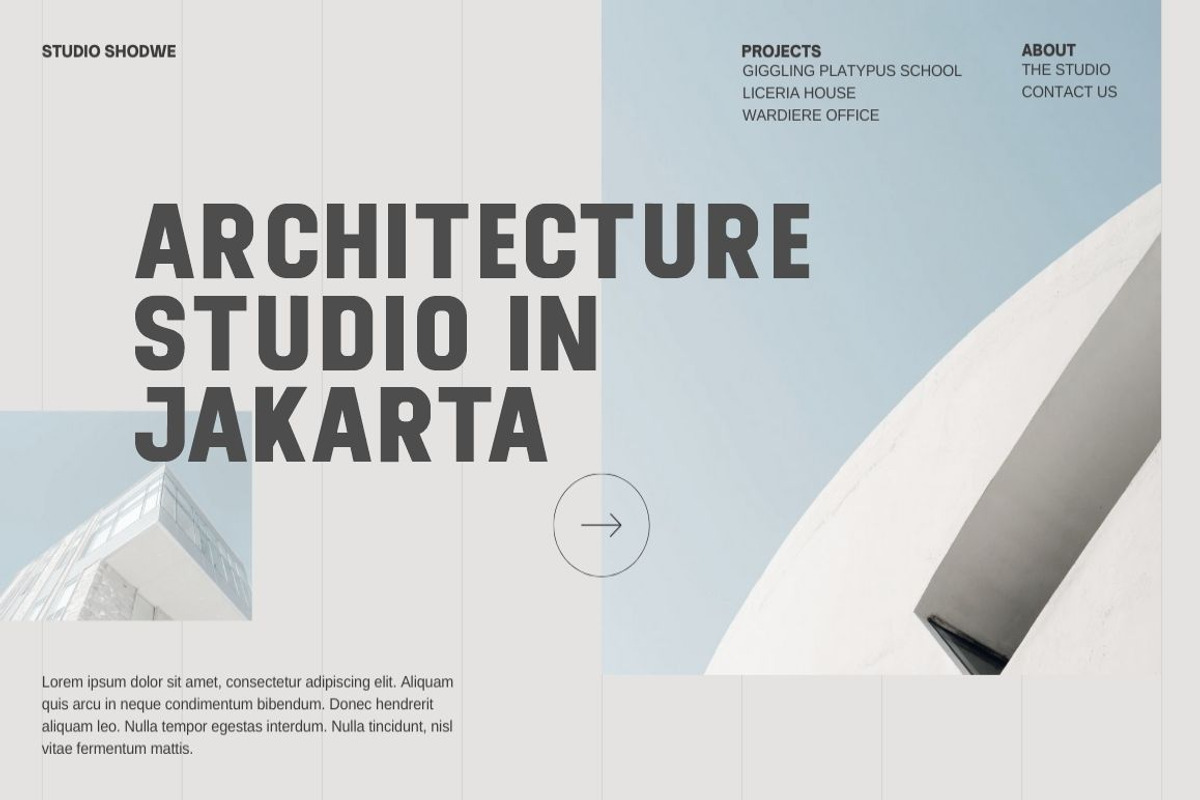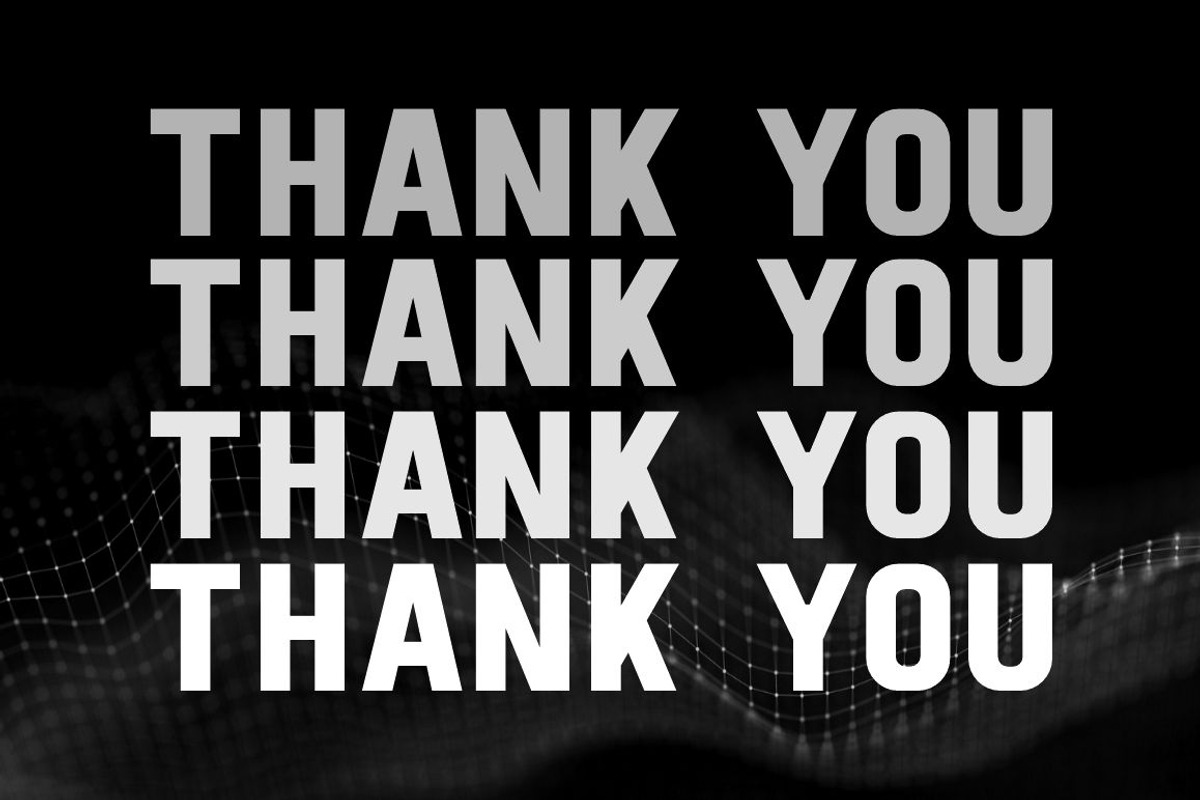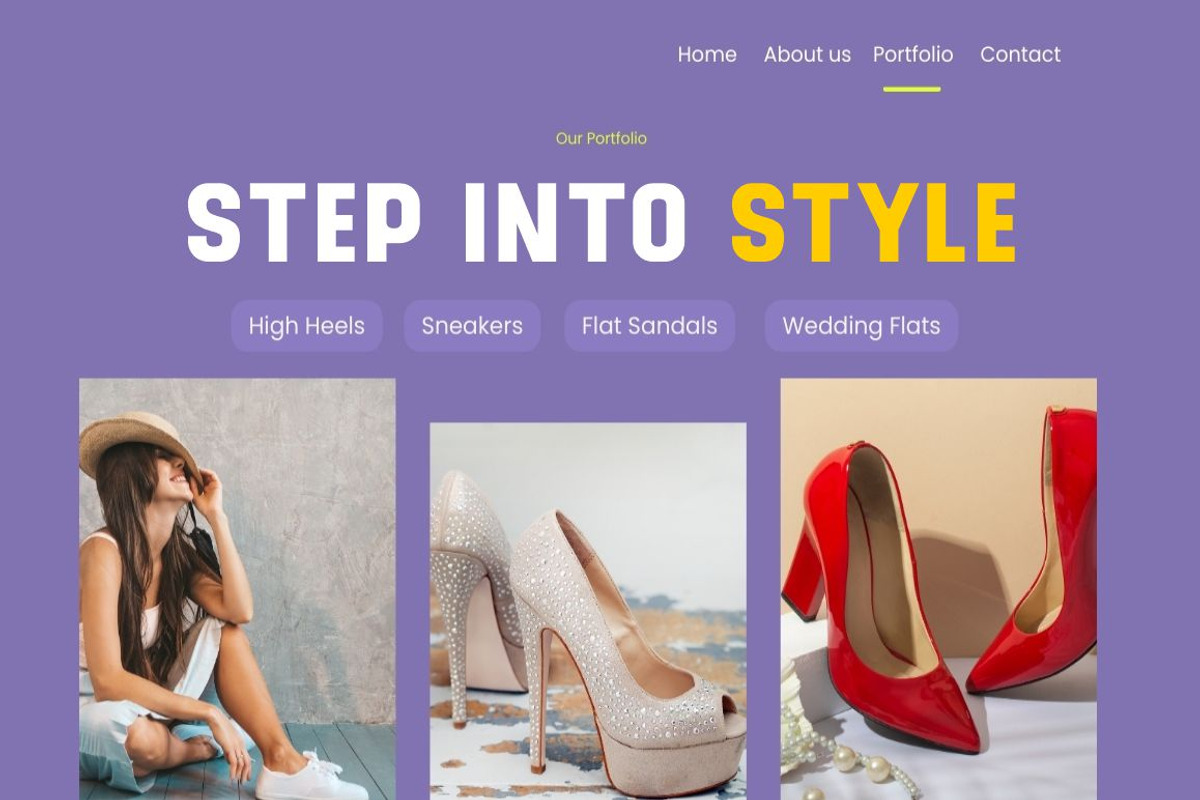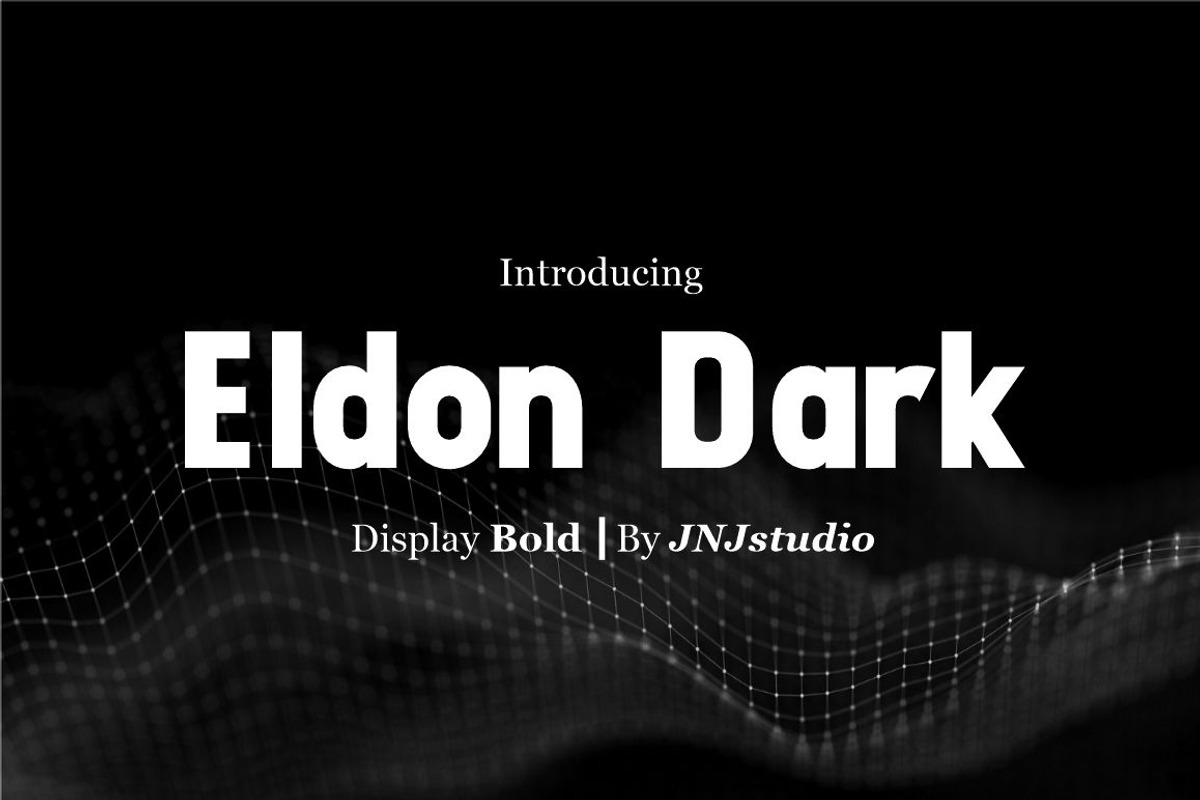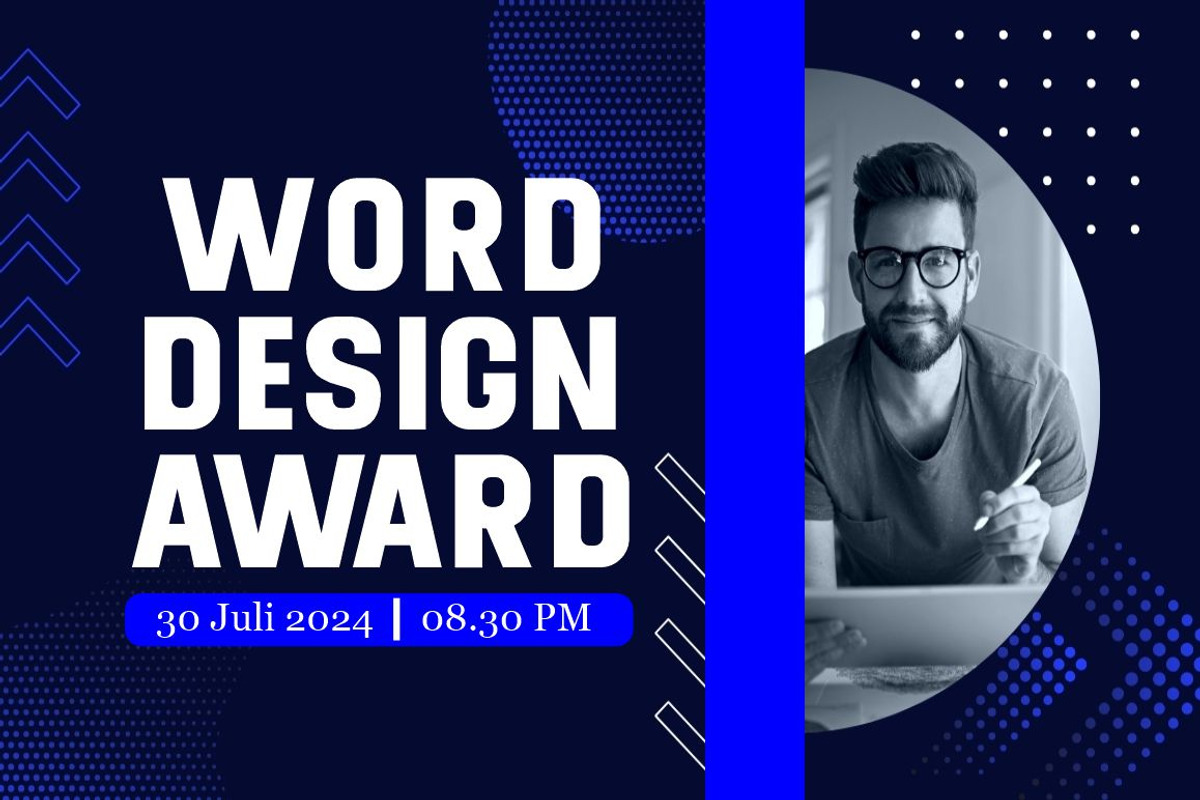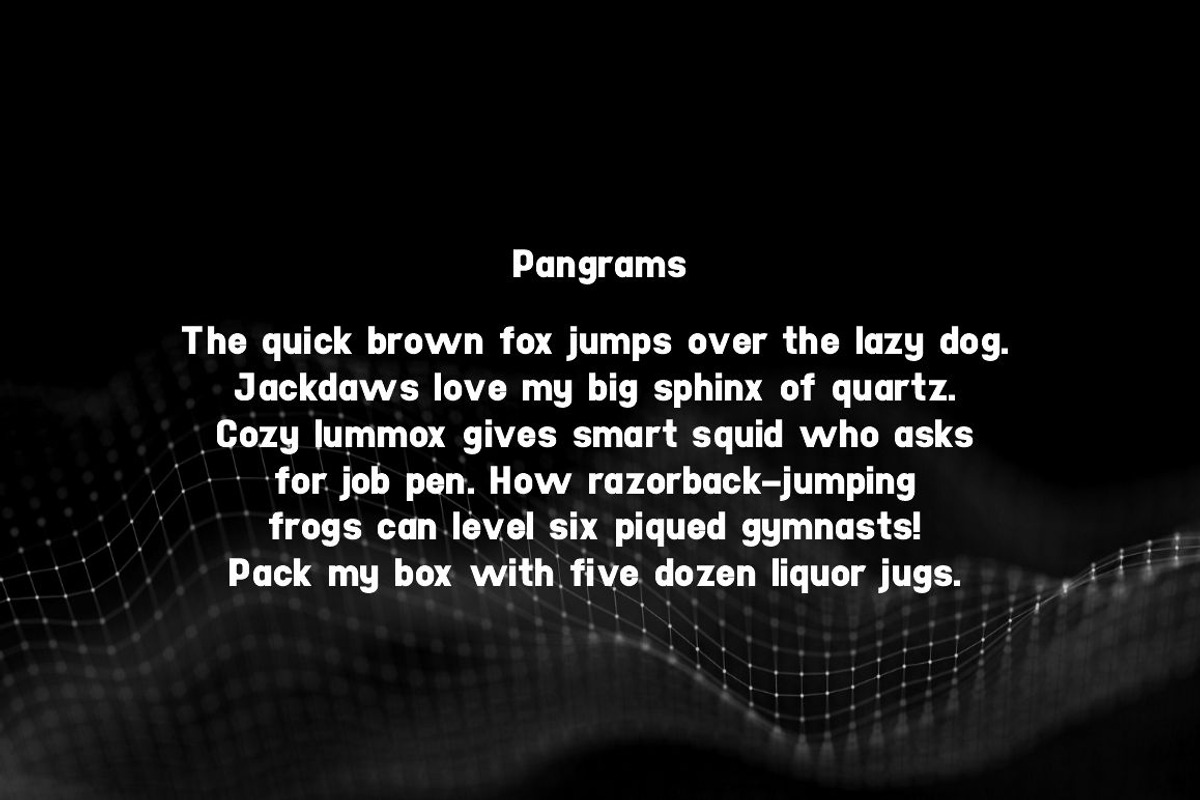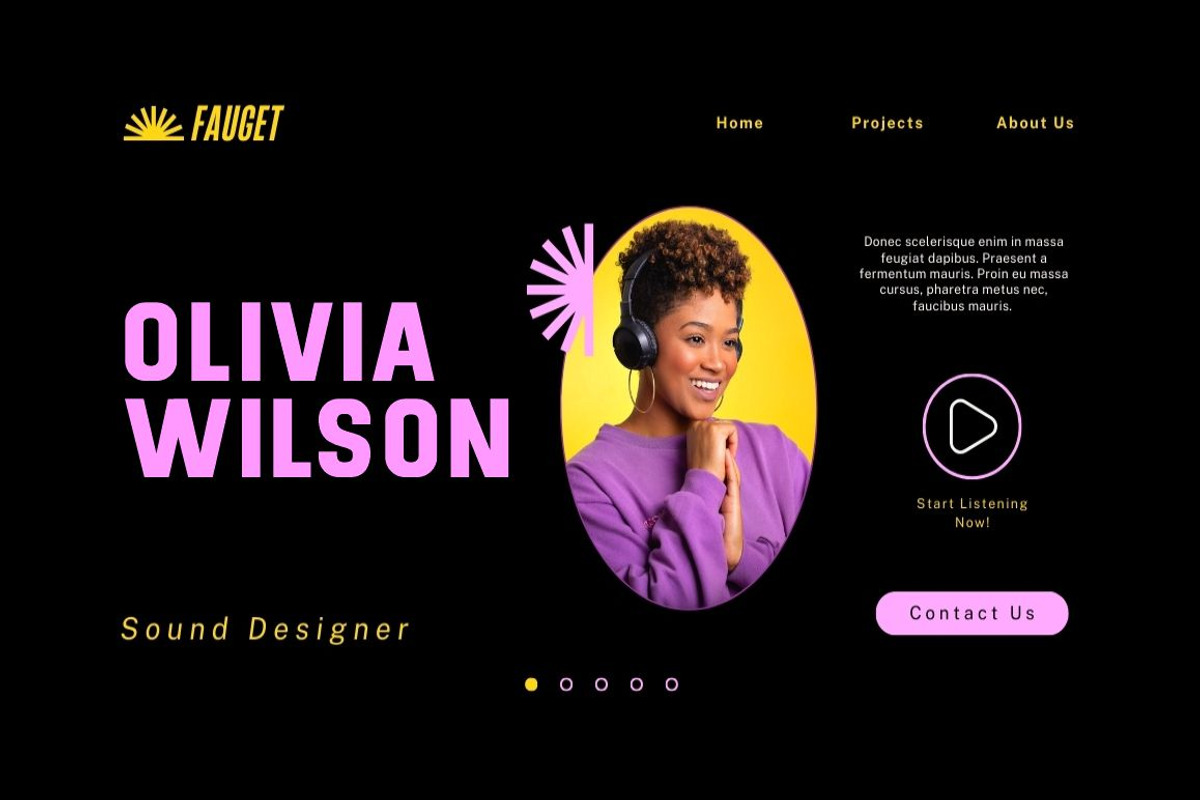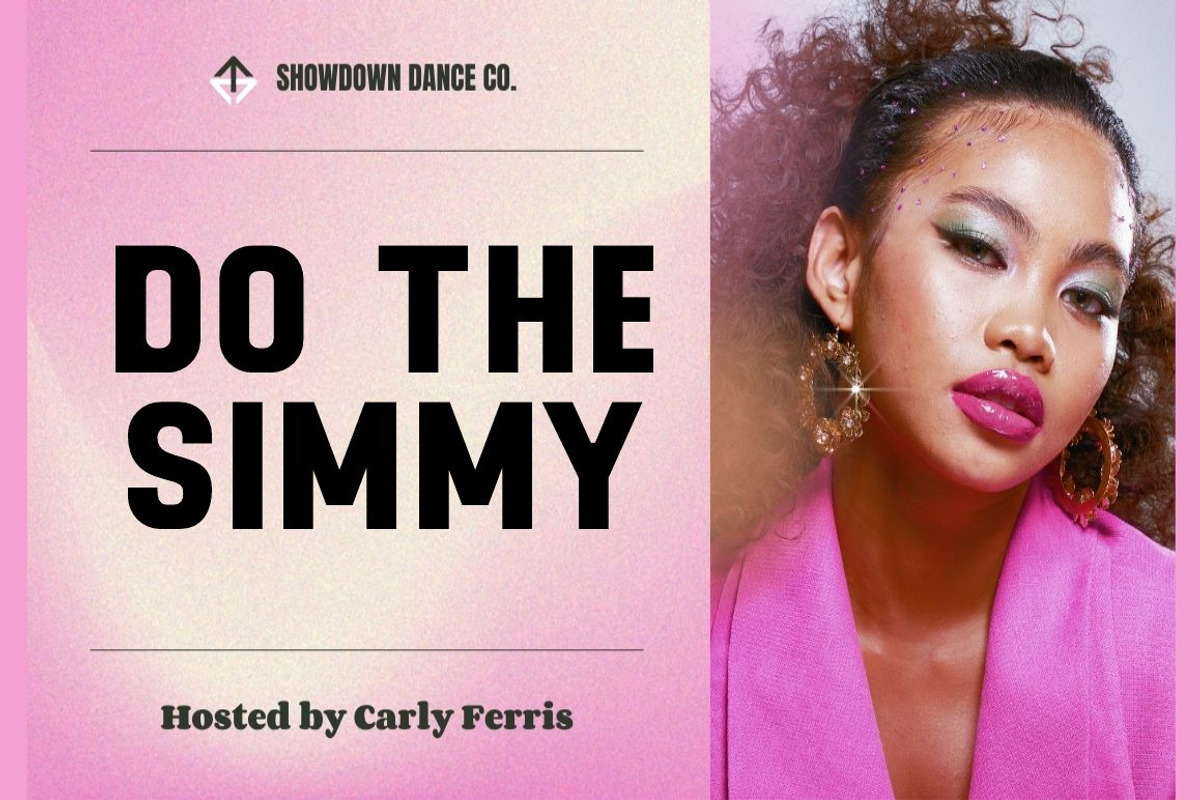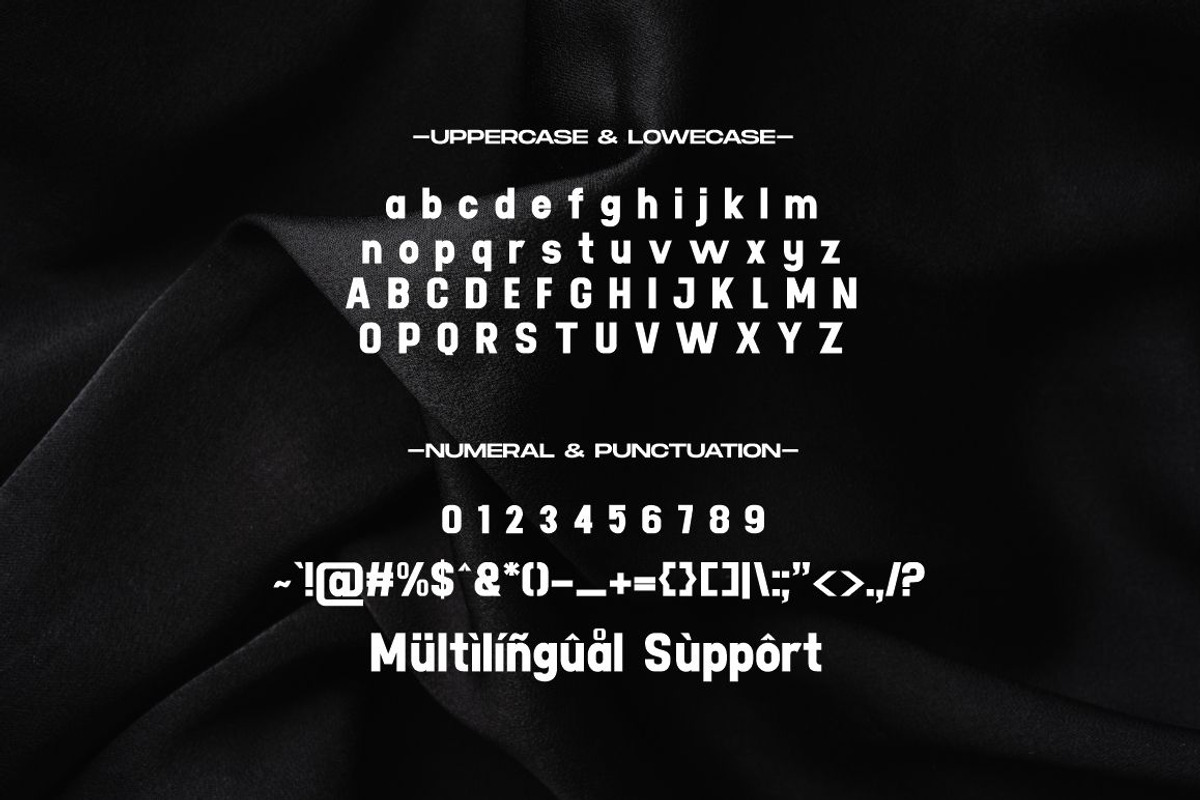
Eldon Dark Sans Serif
Introducing "Eldon Dark" is a bold and striking Display Sans Serif font designed to make a powerful impact. With its clean, modern lines and strong geometric shapes, this font exudes confidence and sophistication. The wide, blocky letterforms are perfect for headlines, posters, and branding that demand attention. Eldon Dark balances sharp edges with smooth curves, creating a harmonious yet assertive aesthetic. Its minimalist design ensures readability while still allowing for creative expression, making it an excellent choice for both digital and print media. Ideal for those looking to convey strength, elegance, and modernity in their designs.